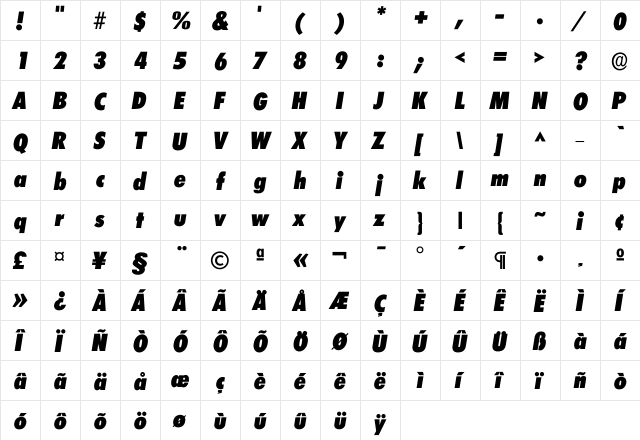
Iclimerick Heavy
Design Context for Iclimerick Typeface
Iclimerick takes a measured approach to typography — its balanced proportions and neutral character make it a reliable workhorse for both digital and print work.